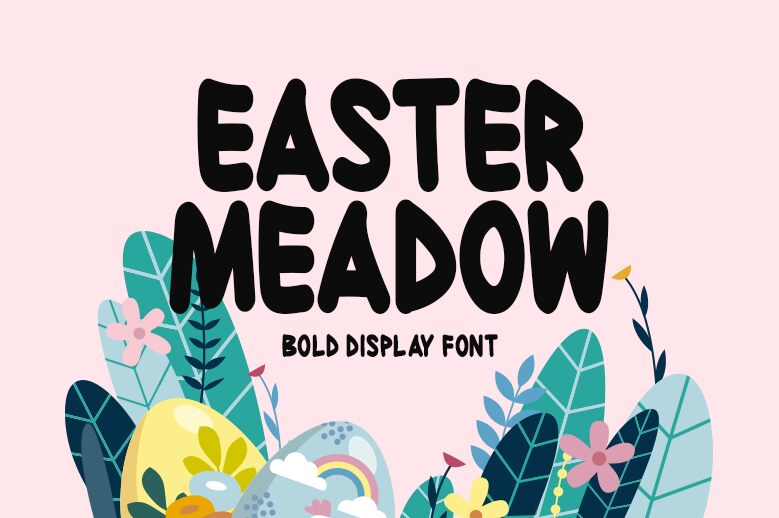
Easter Meadow font by Md Shohail Bhuian is a cartoon-style, condensed bold display font inspired by nature, animals, and plants. It has an organic appearance beaming with quirkiness that can be felt through the unusual shapes of its glyphs. The decorative typeface with its retro feel is overall friendly to look at and was created with play in mind.
Use Easter Meadow for branding or packaging projects related to farm-made products like eggs and milk. Incorporate it if you wish into any project’s logo, title design, or headlines for book covers. Cartoon posters, food advertisements especially children-related ones will all look interesting due to the whimsical style of letters used.